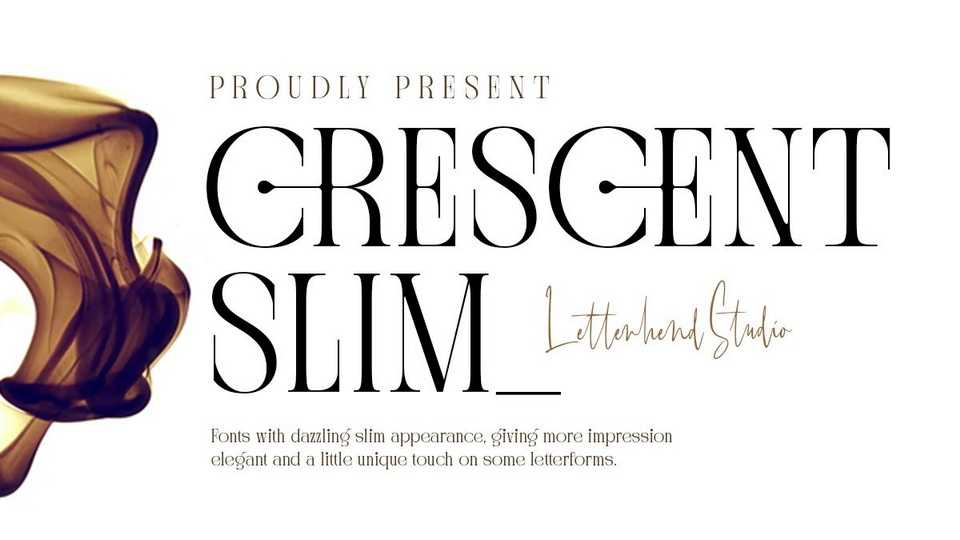
Download Crescent Slim font, a sophisticated serif typeface. Crescent Slim font has been made carefully to make sure its premium quality and luxury feel.